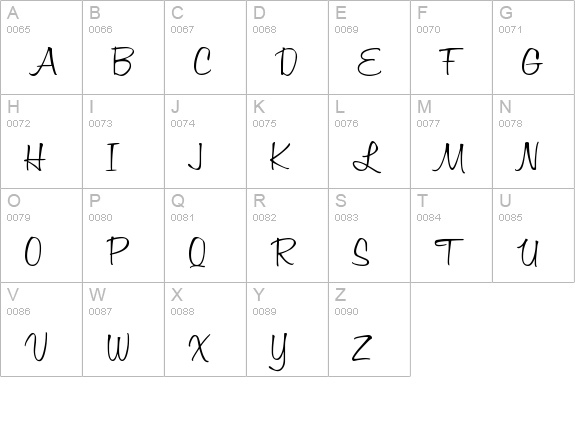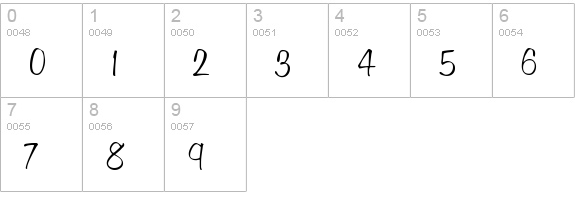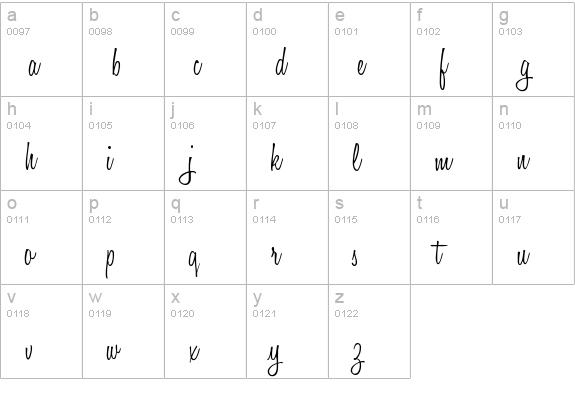
Honey Script Light Font Details
Honey Script Light is a refined, elegant variant in the Honey typeface family \xE2\x80\x94 well suited to elegant body text, refined sub-headings, and luxury branding.
Honey Script Light is a charming and elegant typeface that exudes warmth and friendliness. Its delicate strokes and graceful curves make it perfect for adding a touch of sophistication to your designs. This versatile font is ideal for a wide range of projects, from wedding invitations to branding materials. And the best part? Honey Script Light is available for free download at FontsMarket.com! This means you can easily incorporate this beautiful font into your projects without any cost. So why wait? Add a touch of sweetness to your designs with Honey Script Light today!